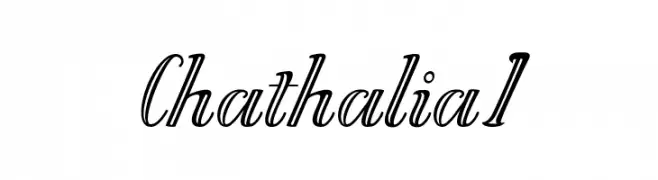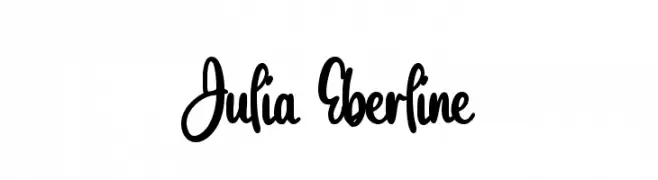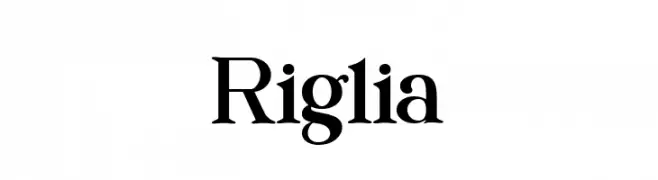
An elegant script font with intricate loops and high contrast.
A playful and whimsical script font with a handwritten style.
A bold, expressive handwritten font with fluid strokes and a modern flair.
An elegant, flowing script font with graceful curves and ornate uppercase letters.
A graceful, handwritten script font with elegant, flowing letters.
An elegant script font with ornate swashes and flowing, interconnected letters.
A bold, high-contrast serif font with dramatic strokes and elegant serifs.
A bold serif font with sharp serifs and a modern twist.
An elegant, flowing script font with classic calligraphic elements.
A flowing, cursive script font with elegant, connected strokes.